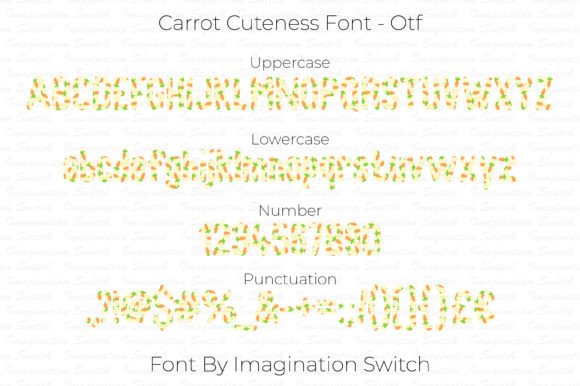
The Ultimate Guide to Carrot Cuteness Font: Adding a Pop of Color to Your Designs
I’ll never forget the time I was working on a project for a children’s book, and I just couldn’t find the right font to match the playful vibe of the illustrations. The client wanted something that would appeal to kids, but also look professional enough to be taken seriously. That’s when I stumbled upon Carrot Cuteness, a captivating typographic creation that utilizes intriguing colors to enhance its visual appeal. It was love at first sight! 💕
An Honest Review of Carrot Cuteness
So, what makes Carrot Cuteness so special? Let’s dive into the good stuff! 😊
• ✨ Unique color scheme: Each character has been carefully colored to add a mesmerizing visual touch, making each word and number stand out.
• ✅ Complete set of characters: Uppercase, lowercase, and numbers are all included, providing flexibility across various types of projects.
• 🎉 : Despite its playful design, Carrot Cuteness remains easy to read, making it perfect for both print and digital designs.
Of course, no font is perfect, and Carrot Cuteness has a few minor quirks:
• 🤔 Limited use in formal designs: While Carrot Cuteness is amazing for creative projects, it might not be the best fit for more formal or professional designs.
• ⚠️ Color consistency: Depending on the platform or software used, the colors might not display consistently, which could affect the overall look of your design.
The Story Behind Carrot Cuteness
Carrot Cuteness was designed by a team of creatives who wanted to bring a touch of whimsy to the world of typography. Inspired by the bright colors and playfulness of children’s illustrations, they crafted a font that would add a pop of fun to any design. The result is a captivating font that’s both visually appealing and highly versatile.
Font Name Carrot Cuteness Font
Author Imagination Switch
What makes Carrot Cuteness unique? The font’s unique color scheme and careful character design make it stand out from more traditional fonts.
Is Carrot Cuteness suitable for body text? While Carrot Cuteness is legible, it’s better suited for headings, titles, or short paragraphs due to its playful design.